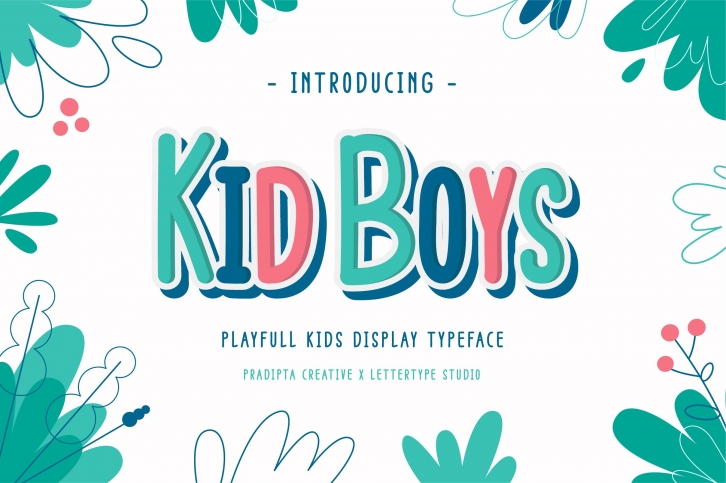
Kid Boys is a gorgeous font that was realeased on December 11, 2020. The font can be used in many style contexts and design environments. Perfect for invitations, magazines, websites, logos, and more! It was designed by Pradipta Creative and the file size is 17.15 MB. Thanks for checking out this font!